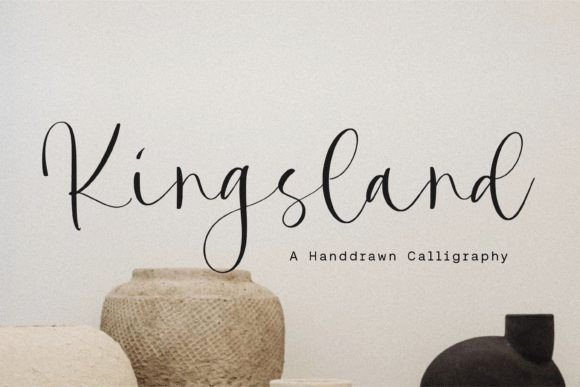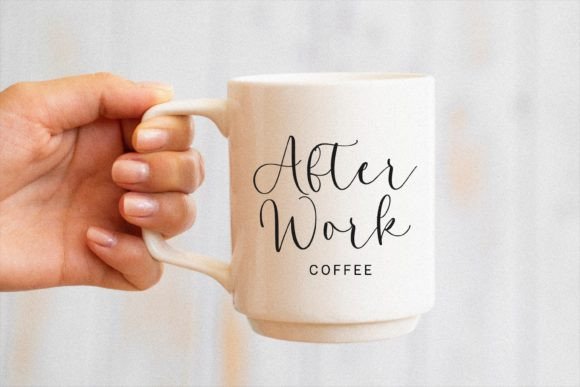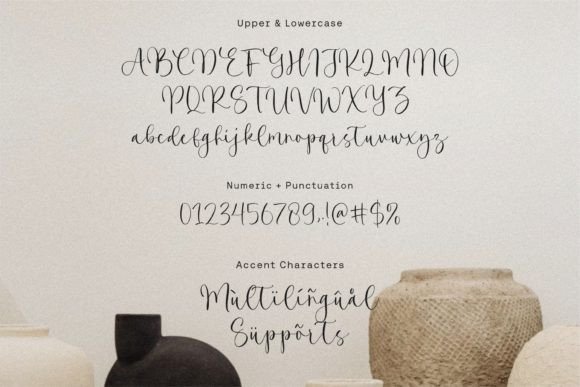
Adding a Touch of Elegance: The Power of Kingsland Font
There’s nothing quite like the thrill of brainstorming a new design project. The blank page stares back at you, full of possibilities and endless potential. But what happens when you’re looking for that special something to elevate your design from good to great? That’s where the Kingsland Font comes in – a stunning handdrawn calligraphy font that’s perfect for adding an elegant touch to your design projects.
Crafted with care and attention to detail, this versatile font is incredibly valuable for designers. Its modern, handwritten style gives it a unique character that’s sure to make an impact. Whether you’re working on a logo, branding, invitation, or any other design project, the Kingsland Font is sure to bring a level of sophistication and charm that will leave a lasting impression.
Kingsland Font Key Features
- Unique Characteristics: Kingsland Font features a unique blend of modern and vintage elements, with subtle textures and ornaments that add a touch of sophistication to any design.
- Font Metrics: The font’s metrics are carefully designed to ensure optimal readability and legibility, with a focus on clear letterforms and balanced spacing.
Kingsland Font Review
Overall, I think the Kingsland Font has a lot to offer, but it’s not without its flaws. Let’s dive in and take a closer look.
- The Kingsland Font has a modern, elegant feel that would be perfect for a variety of projects.
- The font is highly legible, making it a great choice for body text or headings.
- The font’s weight and style options provide a good range of versatility.
- The font’s aesthetics may not be to everyone’s taste. Some users might find it too clean or minimalist.
- The font doesn’t have as many character styles or ornaments as some other fonts in its class.
The Kingsland Font is a solid choice for designers looking for a clean, modern font. While it may not be the most unique or feature-rich font, it’s well-suited for a variety of projects and is highly legible. If you’re looking for a simple, elegant font for your next project, the Kingsland Font is definitely worth considering.
Tips for Getting the Most Out of Kingsland Font
Kingsland Font is ideal for use in formal or professional settings. Tips for getting the most out of it include:
– Pairing it with a clean and simple background to let the font shine.
– Using it for headings or titles to add a touch of sophistication.
– Experimenting with different font sizes and colors to create visual interest.
Kingsland Font is commonly used in:
– Business reports and proposals
– Marketing materials and brochures
– Academic papers and theses
– Professional resumes and CVs
Alternatives to Kingsland Font for Designers
Playfair Display is an elegant and luxurious serif font ideal for high-end branding, luxury goods, and fine arts. It is perfect for creating a sense of sophistication and refinement. When to use: Luxury branding, high-end fashion, and fine art projects.
Comparison: Playfair Display has a more refined and luxurious feel compared to Kingsland Font, which has a more rustic and vintage vibe. While Kingsland Font is great for casual and rustic designs, Playfair Display excels in creating a sense of opulence and grandeur.